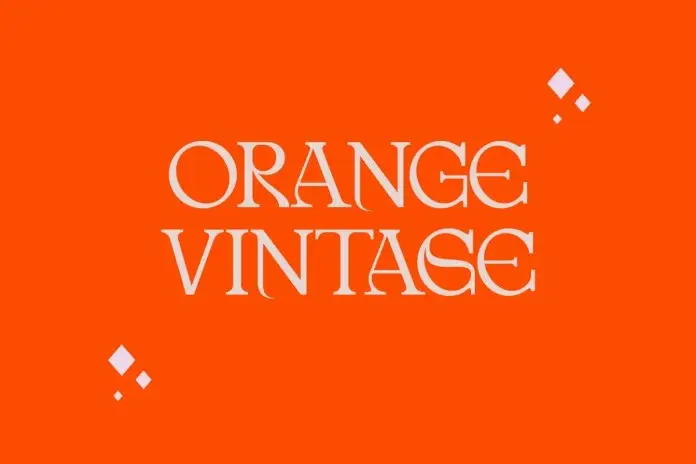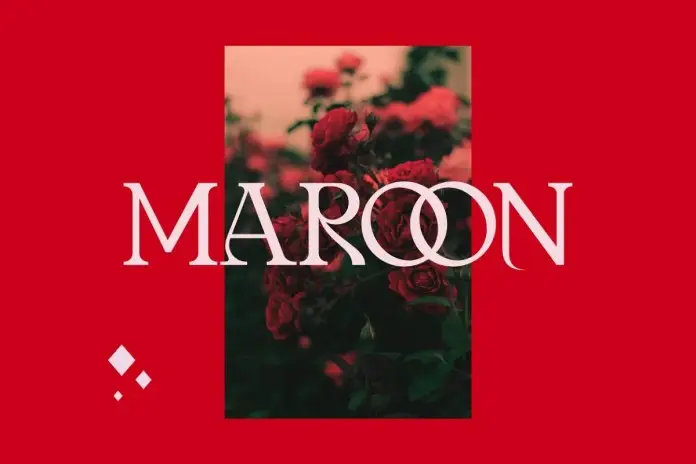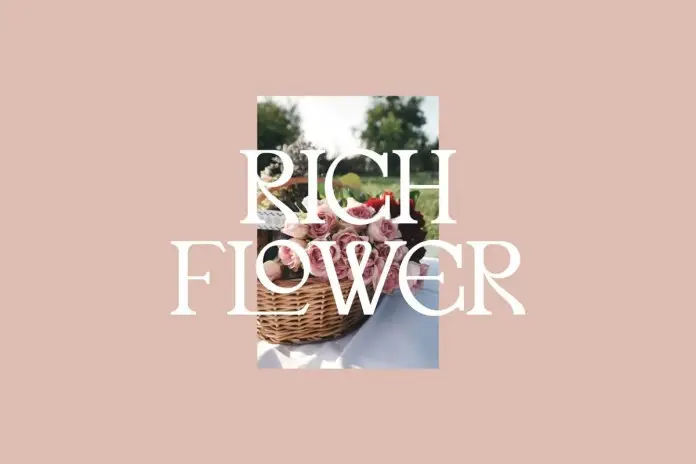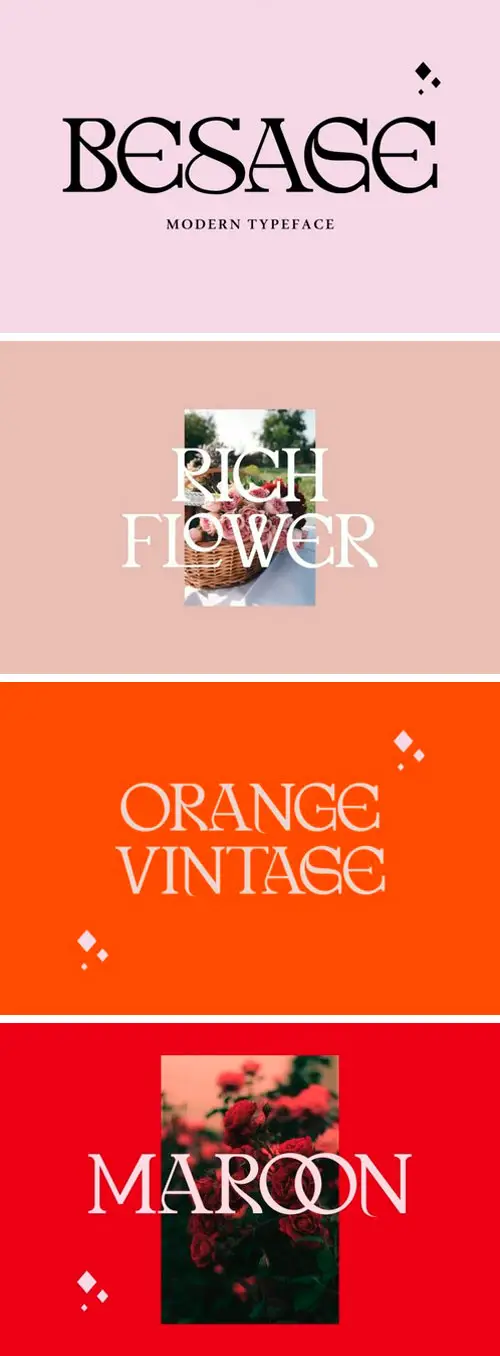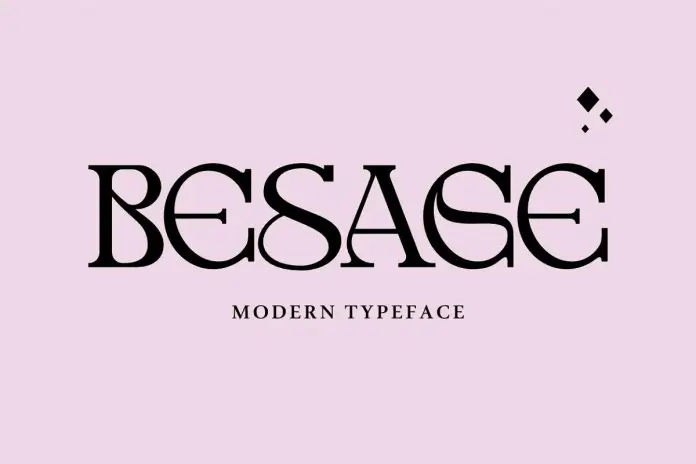
Besage Font
The Besage Font is a beautifully crafted typeface that combines elegance with modern design. Perfect for a variety of applications, this font features a clean and stylish aesthetic that works well in both print and digital formats.
Utilize the Besage Font for branding, logos, websites, and user interfaces. Its contemporary style makes it an excellent choice for projects that require a touch of sophistication.